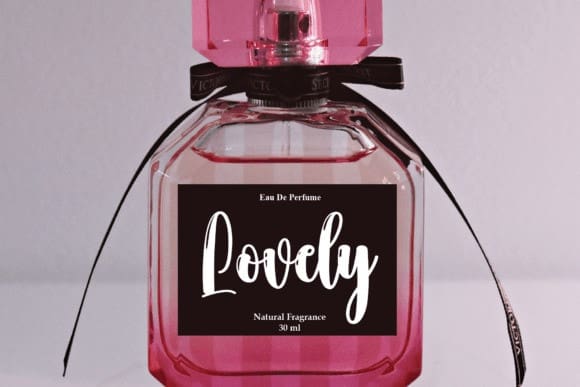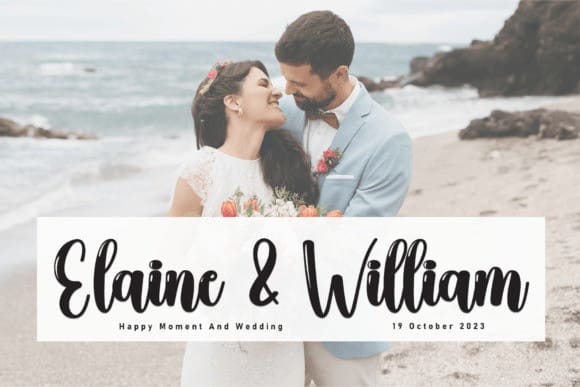
Smarting Designer Font
Smarting Designer Font is a sweet and friendly handwritten font. Its natural and unique style makes it incredibly fitting to a large pool of designs. The only limit is your imagination!